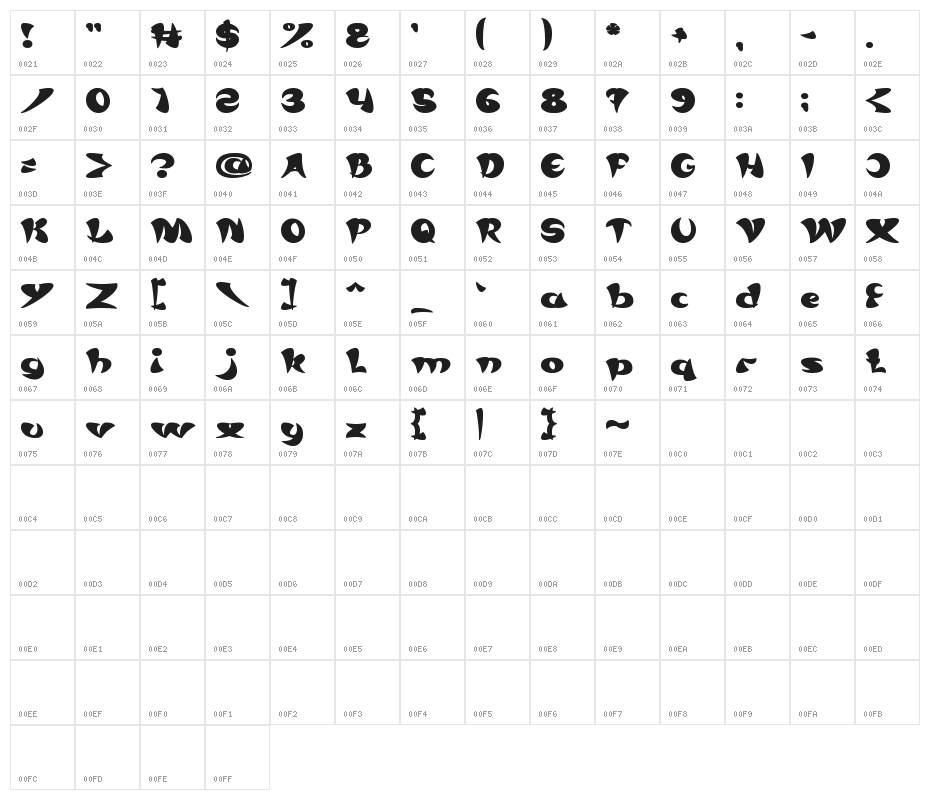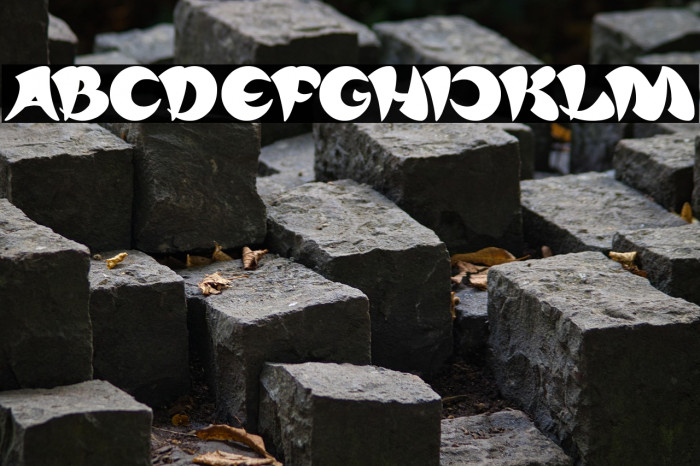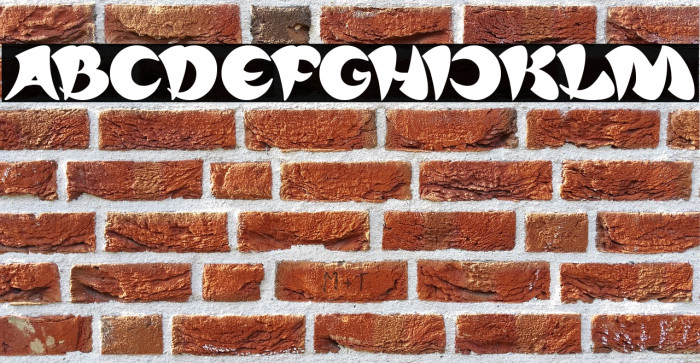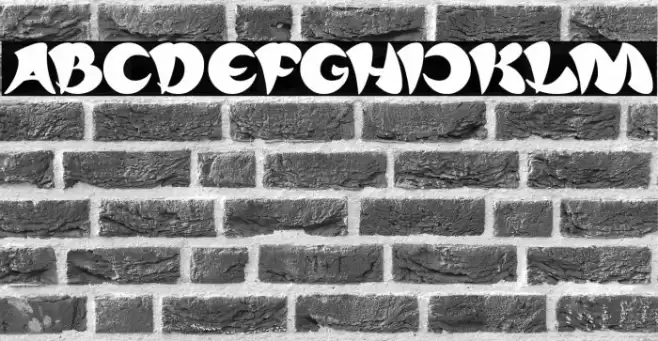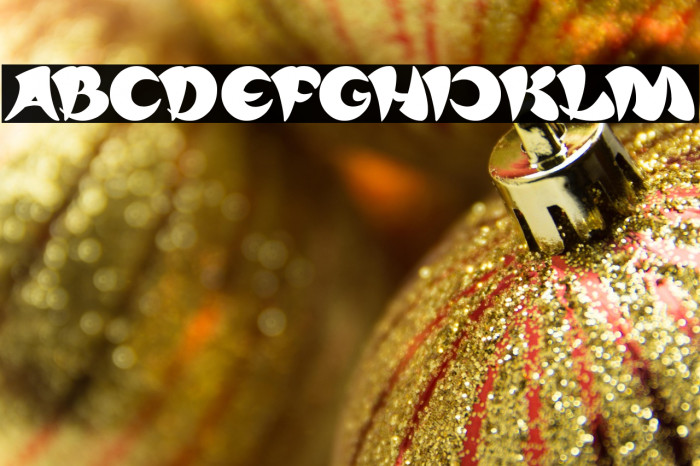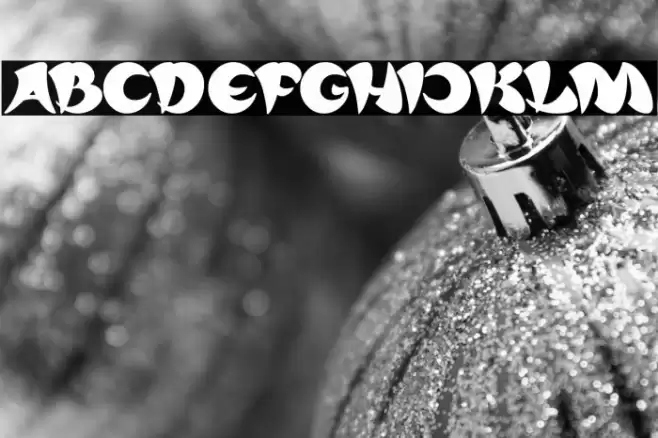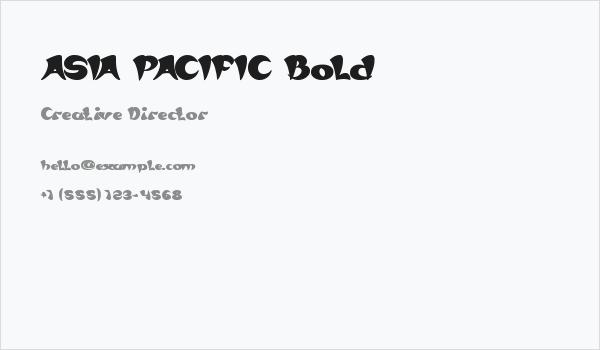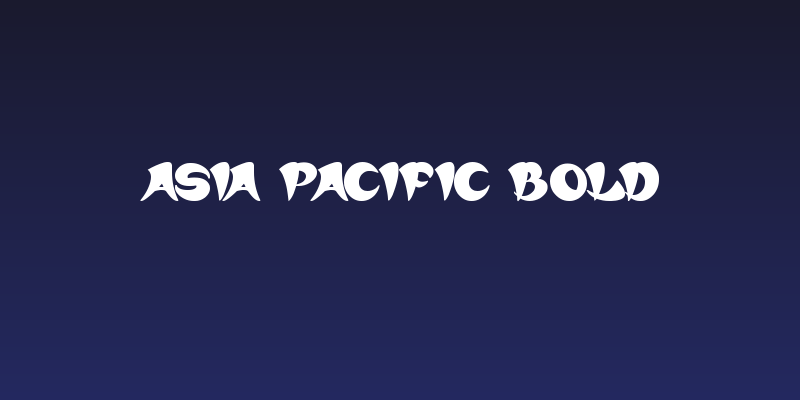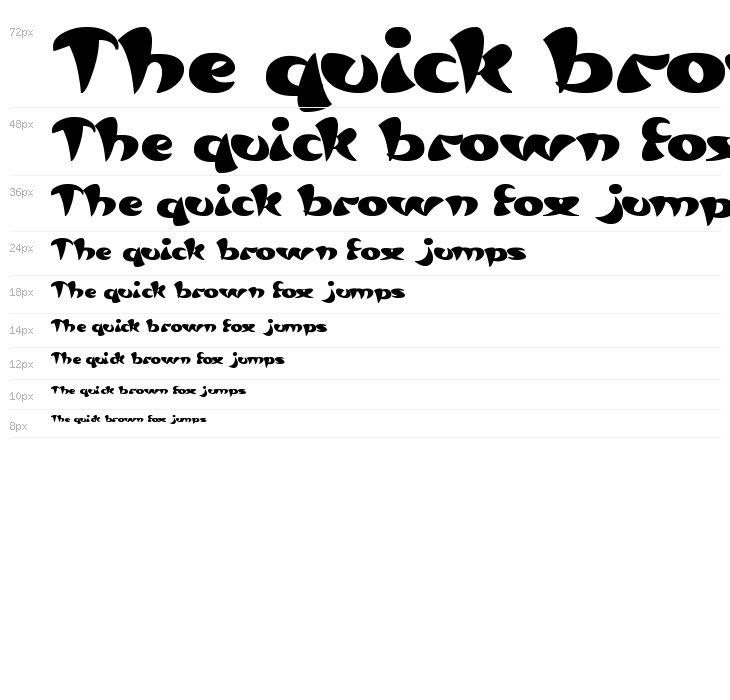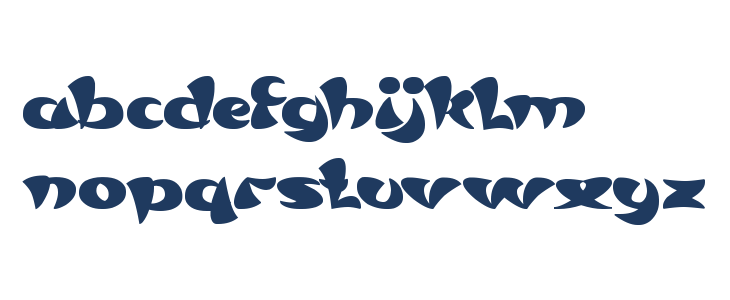
ASIA PACIFIC Bold Font
ASIA PACIFIC Bold Description
This font features a bold and dynamic style with a distinctively playful and artistic flair. The characters are crafted with thick strokes and unique, rounded shapes that give it a lively and energetic appearance. The uppercase and lowercase letters maintain a consistent style, with some characters incorporating whimsical elements such as curves and swirls. The numbers and special characters follow the same bold and expressive design, making them stand out. This font is ideal for projects that require a strong visual impact and a touch of creativity.
| Proposed Projects | Ideal for posters, logos, branding, and creative projects that require a bold and artistic touch. |